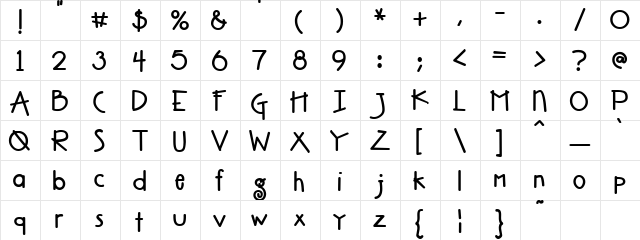
DJ Groovey Regular
Design Context for DJ Groovey Typeface
DJ Groovey is a composed and adaptable typeface that performs quietly and consistently across a wide range of design contexts.
Pro Tip: Use DJ Groovey in both headline and body roles to test its range before committing to a single application.